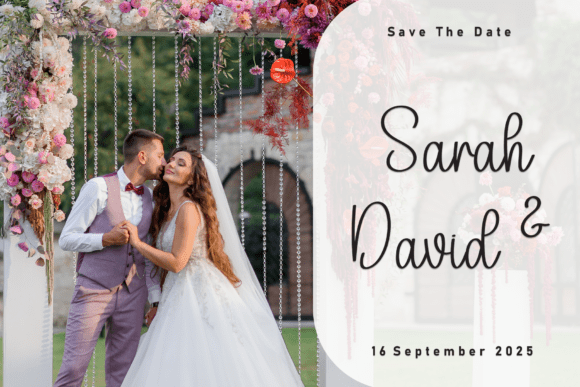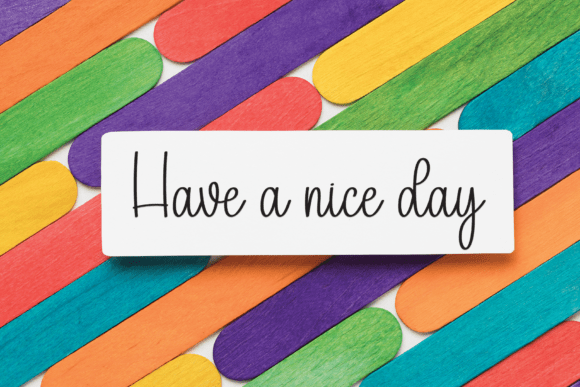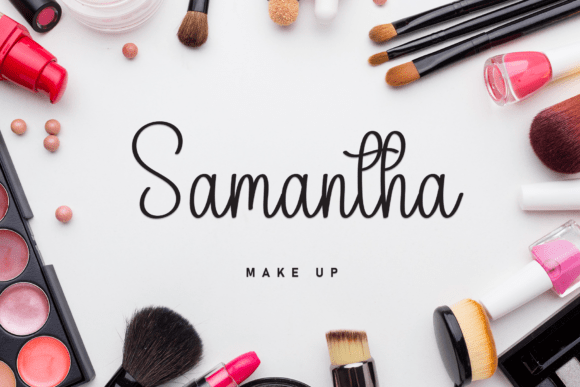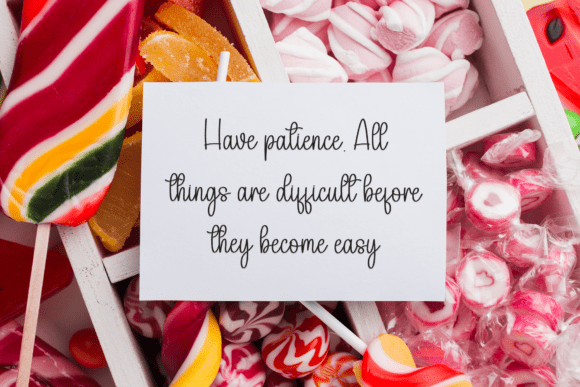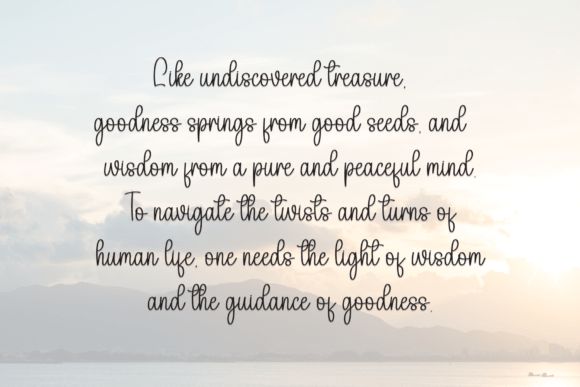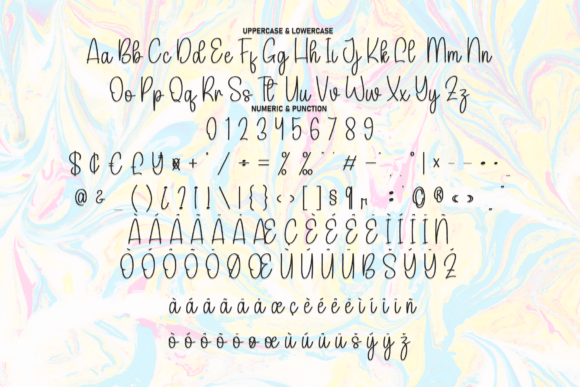
Introducing Colorful: The Ultimate Stylish Script Font for Creative Designs
Are you a designer or crafter looking for a font that can add a touch of artistic flair and contemporary elegance to your designs? Look no further than Colorful, a stunning script font that is sure to take your creative projects to the next level. With its fluid brush strokes, dynamic curves, and expressive letterforms, Colorful captures the essence of hand-painted calligraphy with a modern twist.
The Characteristics of Colorful Font
Colorful is a stylish script font that boasts a range of characteristics that make it perfect for a variety of design applications. Some of its key features include:
- Fluid Brush Strokes: Colorful’s fluid brush strokes give it a natural, hand-painted feel that is perfect for creating artistic and eye-catching designs.
- Dynamic Curves: The font’s dynamic curves add a sense of movement and energy to your designs, making them perfect for capturing the attention of your audience.
- Expressive Letterforms: Each letterform in Colorful is carefully crafted to be expressive and unique, giving your designs a touch of personality and flair.
Uses for Colorful Font
Colorful is a versatile font that can be used for a wide range of design applications, including:
- Logos: Add a touch of elegance and sophistication to your logo with Colorful’s stylish script font.
- Invitations: Create beautiful and eye-catching invitations for weddings, parties, and other special events with Colorful.
- Packaging: Add a creative and artistic touch to your product packaging with Colorful’s unique and expressive letterforms.
- Social Media Graphics: Use Colorful to create stunning social media graphics that are sure to capture the attention of your audience.
The Benefits of Using Colorful Font
So why choose Colorful for your design projects? Here are just a few benefits of using this stylish script font:
- Visual Impact: Colorful’s fluid brush strokes and dynamic curves make it perfect for creating designs that grab attention and make a lasting impression.
- Versatility: With its natural flow and vibrant character, Colorful can be used for a wide range of design applications, from logos and invitations to packaging and social media graphics.
- Creative and Sophisticated: Colorful adds a creative and sophisticated touch to any design, making it perfect for designers and crafters who want to create unique and eye-catching projects.
Tips for Using Colorful Font
Here are a few tips for getting the most out of Colorful:
- Experiment with Colors: Colorful looks great in a range of colors, so don’t be afraid to experiment and find the perfect hue for your design.
- Play with Pairings: Try pairing Colorful with other fonts to create a unique and eye-catching design.
- Use it Sparingly: While Colorful is a beautiful font, it can be overwhelming if used too much. Use it sparingly to create a lasting impression.
In conclusion, Colorful is a stylish script font that is perfect for designers and crafters who want to add a touch of artistic flair and contemporary elegance to their designs. With its fluid brush strokes, dynamic curves, and expressive letterforms, Colorful captures the essence of hand-painted calligraphy with a modern twist. Whether you’re creating logos, invitations, packaging, or social media graphics, Colorful is sure to deliver both visual impact and versatility.